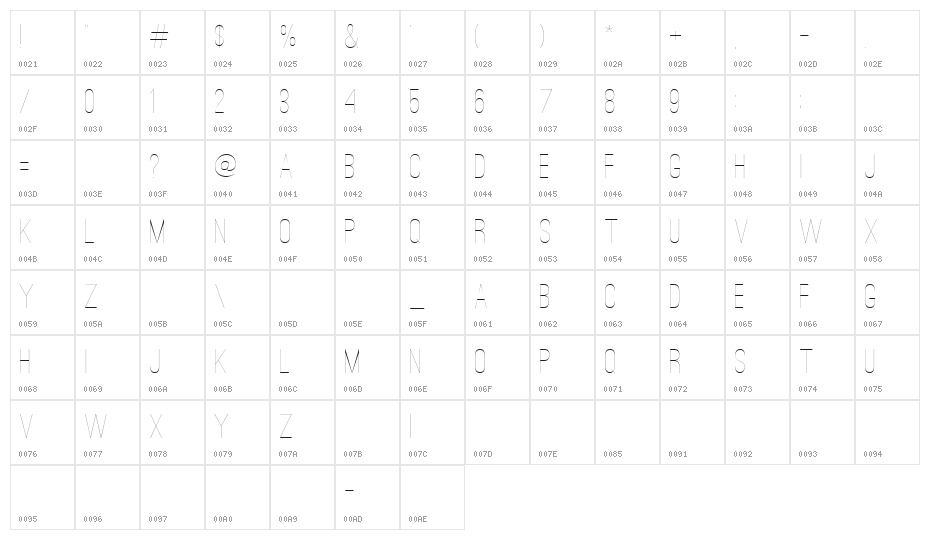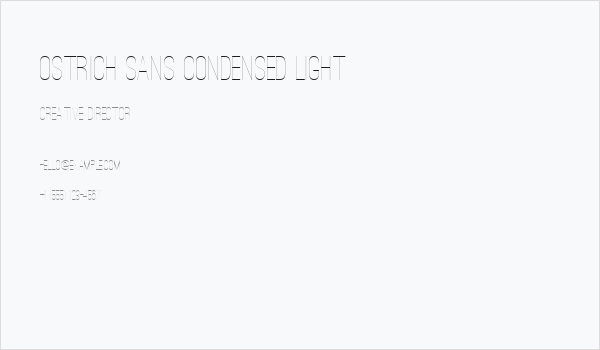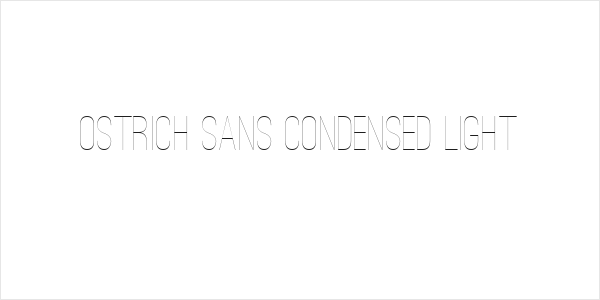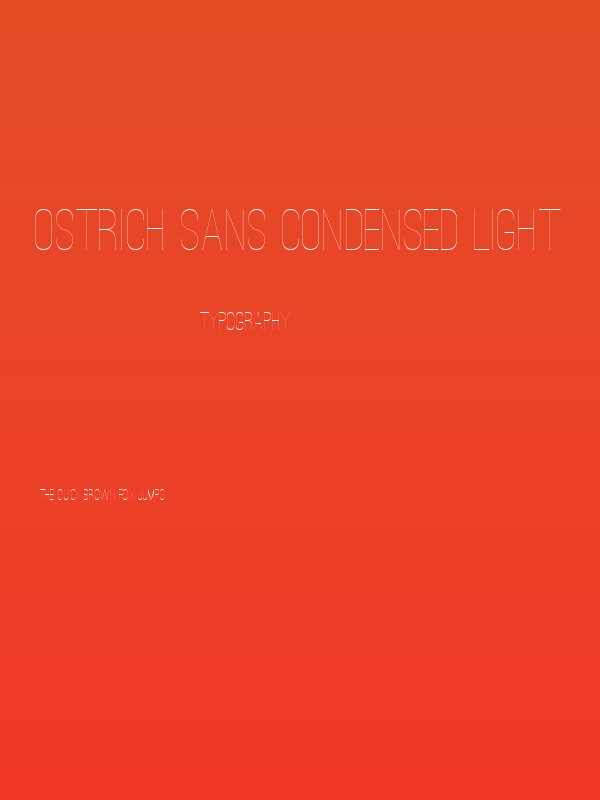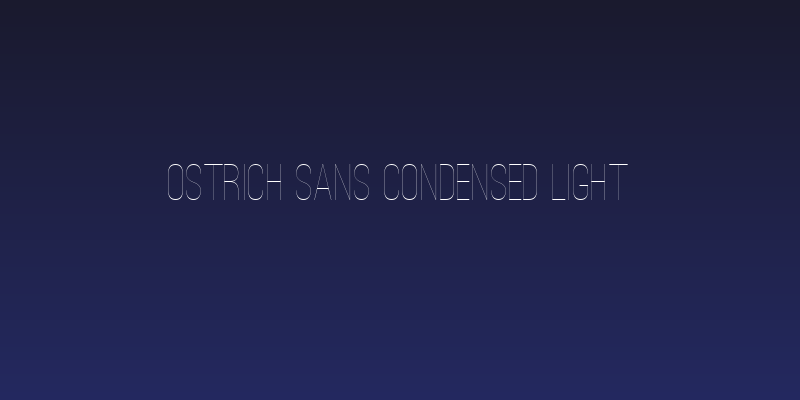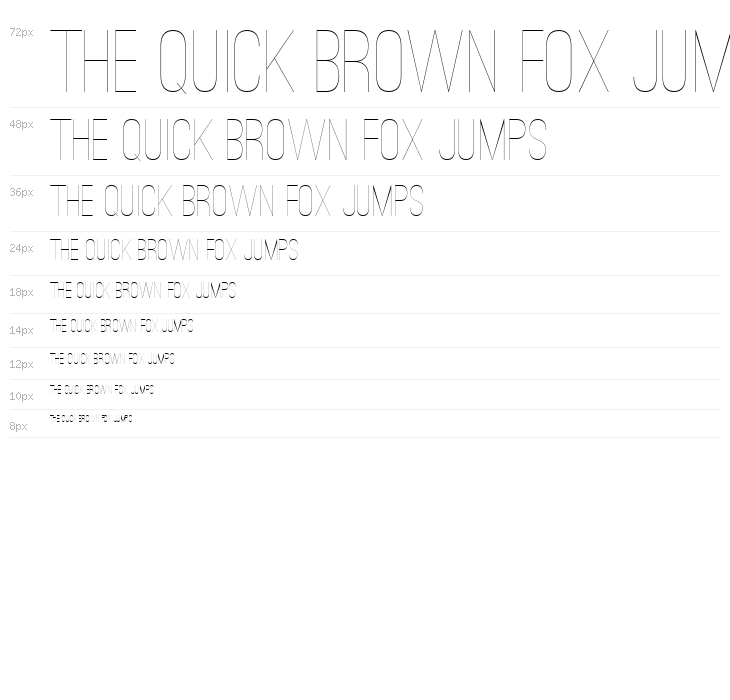
Ostrich Sans Condensed Light Font
Ostrich Sans Condensed Light Description
This font features a clean, minimalist design with a condensed structure, offering a sleek and modern appearance. The characters are tall and narrow, with consistent stroke widths that create a uniform and elegant look. The font's light weight adds to its airy and sophisticated feel, making it suitable for contemporary design projects. Its geometric shapes and precise lines convey a sense of clarity and professionalism, while the spacing between characters is tight, enhancing its compact and efficient style. This font is ideal for projects that require a modern and stylish touch.
| Proposed Projects | Ideal for branding, editorial design, fashion magazines, and minimalist posters. |